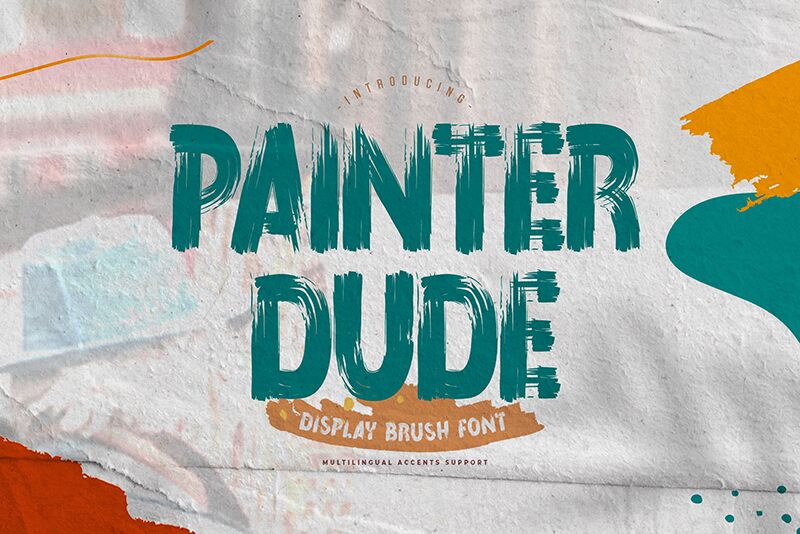
Painter Dude
Painter Dude, a display brush font crafted by Gassstype, embodies the spontaneous energy of hand-painted signage with its modern style and dramatic movement. Each stroke of this bold typeface tells a story of casual swiftness, making it an ideal choice for creative projects that demand a touch of the unique and the rough-edged. Its textured appearance brings forward a strong characteristic that emulates the natural look and feel of brush on canvas.
Perfect for an array of applications, from eye-catching labels to impactful posters, Painter Dude is designed to make your project stand out. Whether you're looking to infuse your branding with personality or give your greeting cards that bespoke touch; this font's versatility extends to packaging design, website headers, photography overlays, and much more. Let Painter Dude be your go-to font for creating works that are as authentically imperfect as they are captivating.